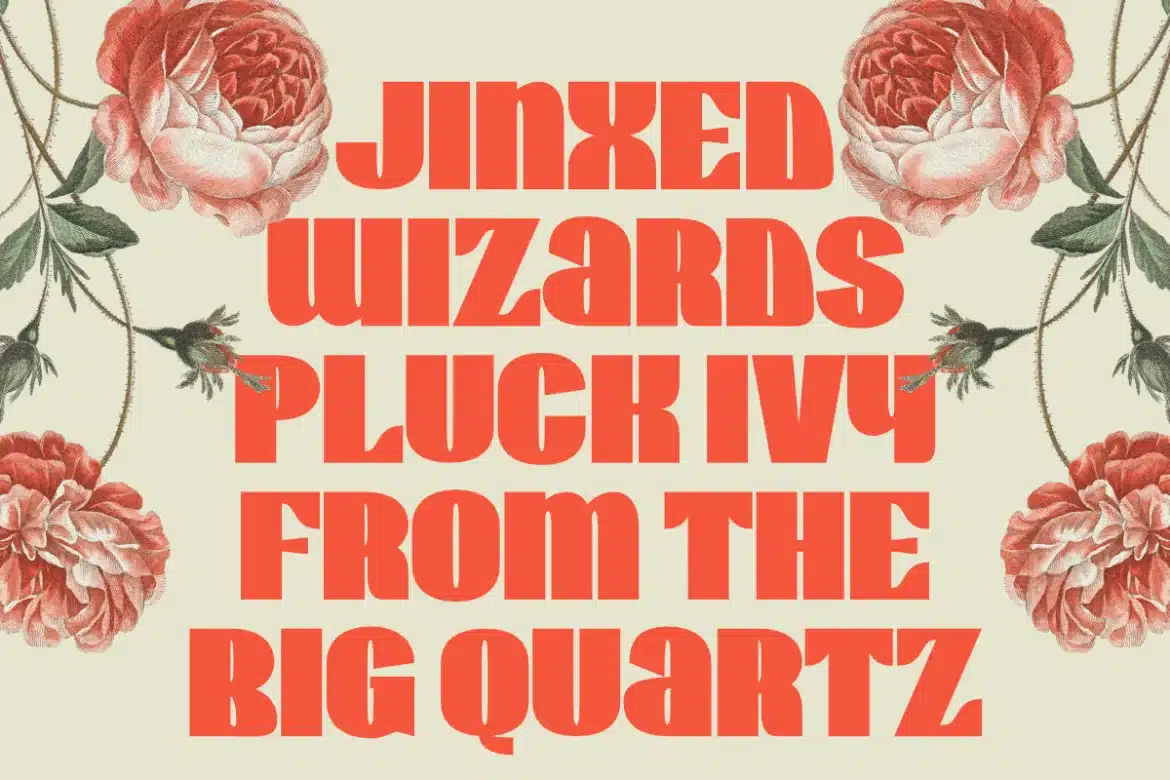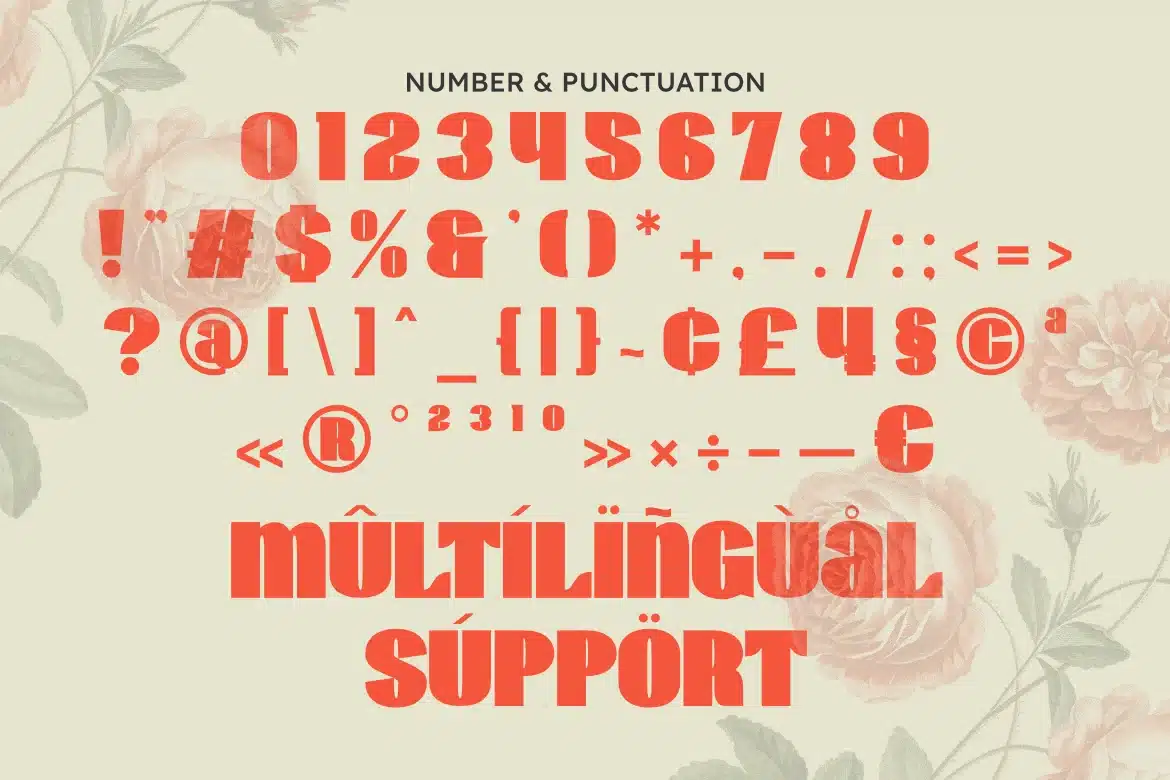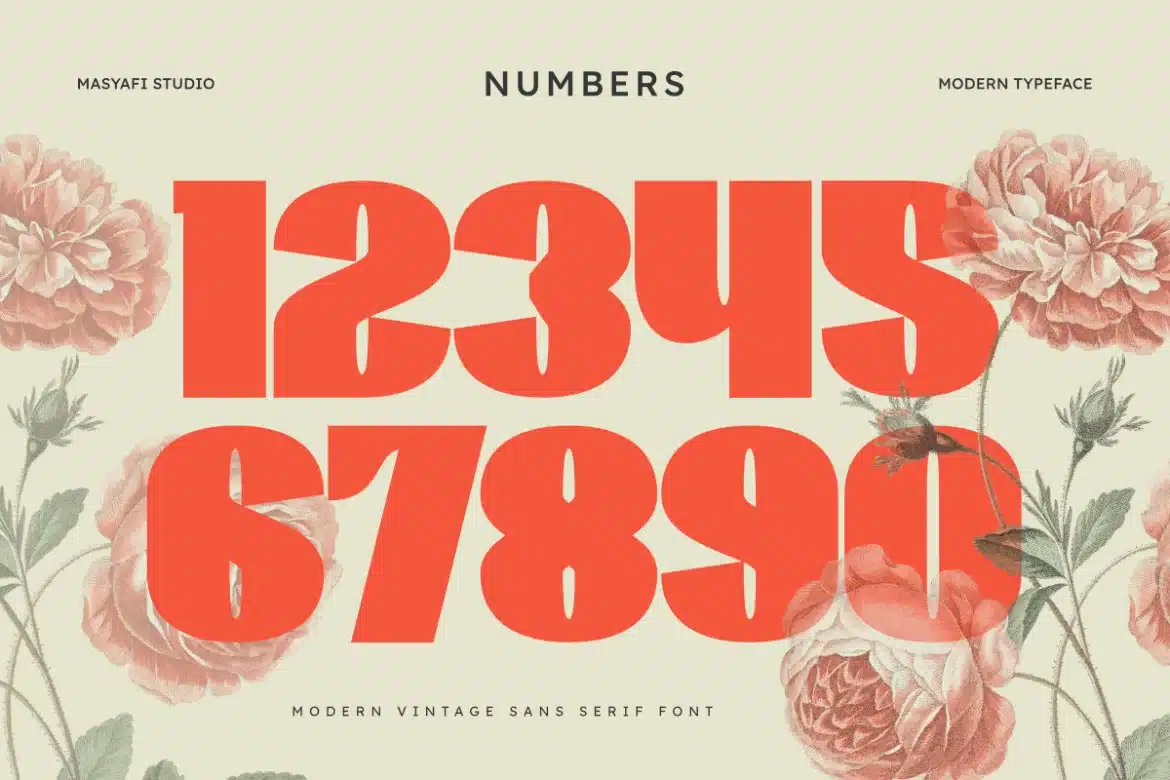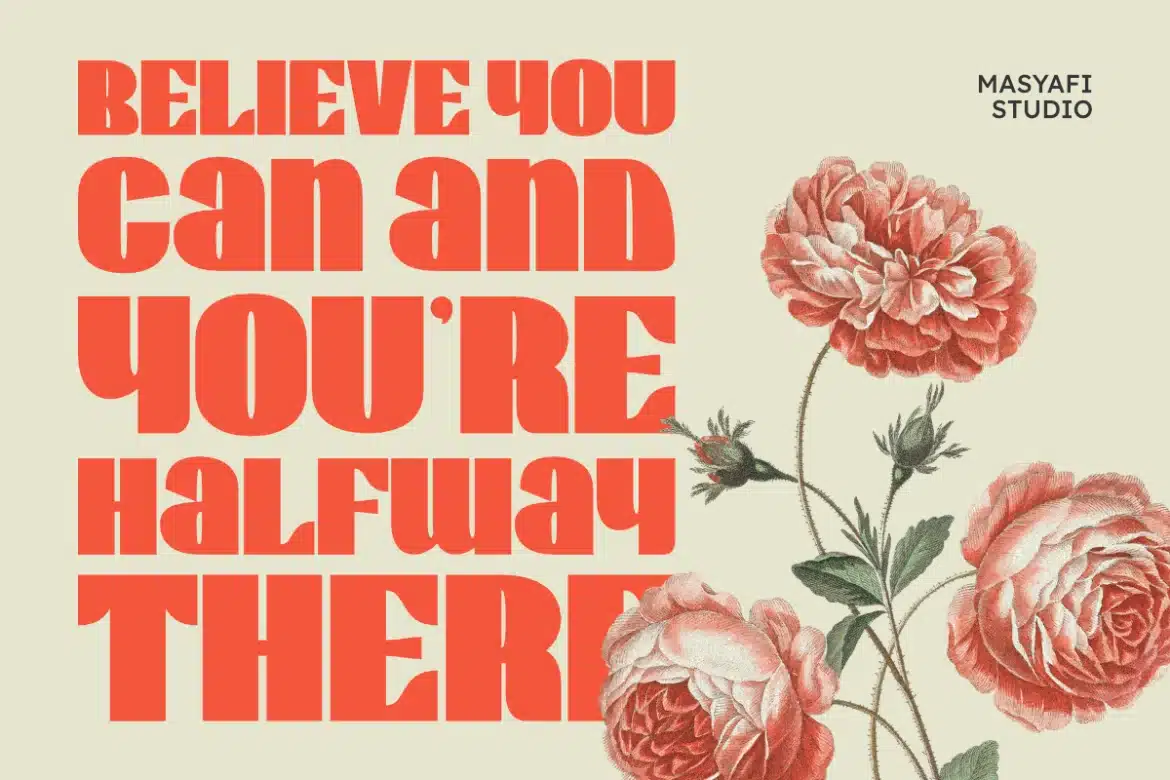
Wirklich – Vintage Sans Serif Font
Wirklich is a bold sans serif font with a strong modern vintage character. Its wide and heavy letterforms bring a striking visual impact, perfect for eye-catching headlines, branding, posters, packaging, and social media graphics. The geometric yet retro-inspired design makes this typeface versatile for both contemporary and nostalgic projects.
- Uppercase & lowercase
- Numerals and punctuation